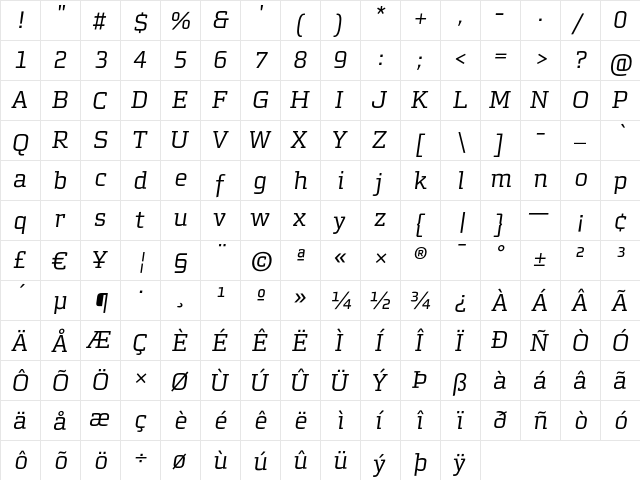
MorganAvec ItalicLining
Design Context for MorganAvec Typeface
MorganAvec takes a measured approach to typography — its balanced proportions and neutral character make it a reliable workhorse for both digital and print work. The dynamic lean of this cut emphasises speed and emphasis in any layout.
Pro Tip: Use MorganAvec for emphasis, pull quotes, and subheadings where its slanted energy can add rhythm to the layout.